Stand aside Google, YouTube, Airbnb, Coca-Cola, and Netflix. Stand aside everyone, I guess. Because Arby’s has its own custom font now, too.
For those who haven’t been watching typeface trends closely, custom fonts are the latest, greatest way to tacitly extend a brand into every word that a customer might read. The advantages of these typefaces range from subliminal to legible to egotistical–but for the most part, in a world where apps are the primary way we interact with brands, and where we judge companies through little more than letters on an interface, it makes some sense for companies with unlimited budgets to make their own accompanying typefaces.
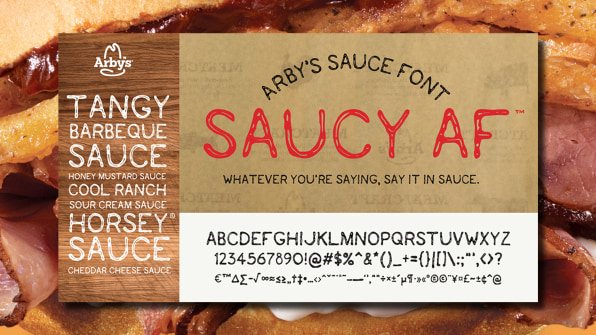
However, in this case, I’m not sure if Arby’s is adopting that strategy or just mocking it. The font is called Saucy_AF (translation for my fellow olds: “saucy as fuck”), and it’s downloadable for anyone to use at will. The smeary, sticky glyphs look like a murky nightmare to read at small sizes, the letterform equivalent of Horsey Sauce residue left on a wrapper. “Whatever you’re saying, say it in sauce,” a marketing guru within Arby’s proclaims.
In other words, Saucy_AF is clearly a joke, but also simultaneously a very real thing, making it the perfect millennial marketing stunt.